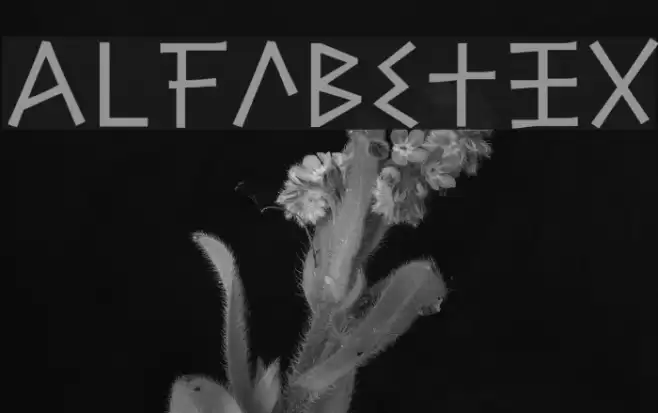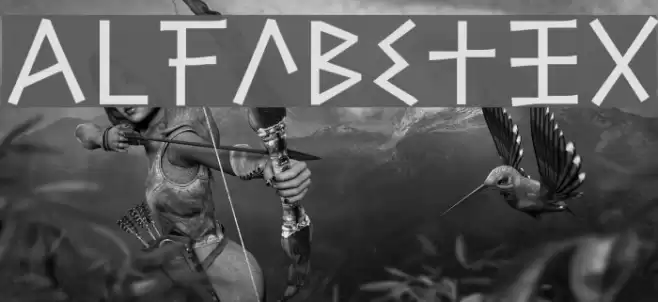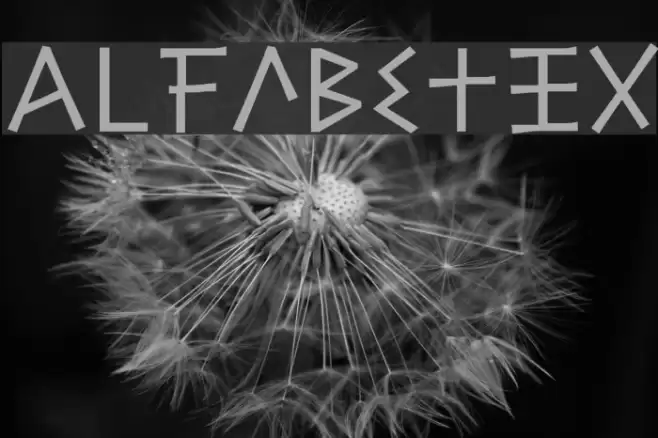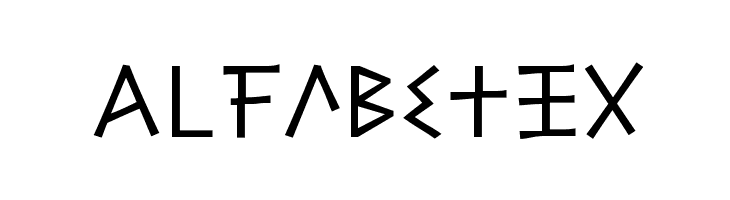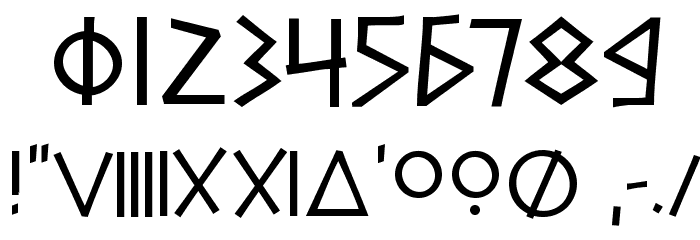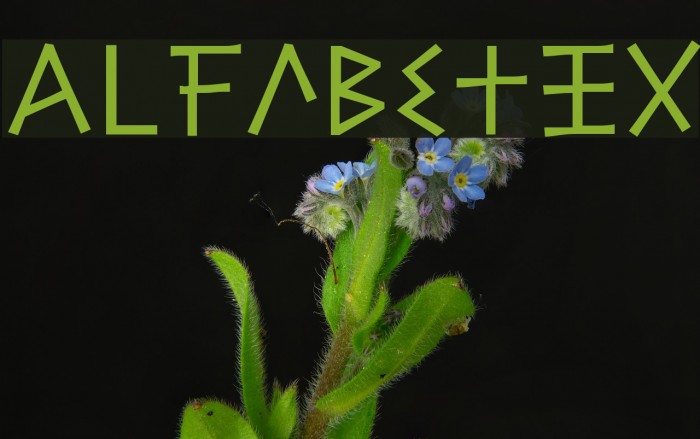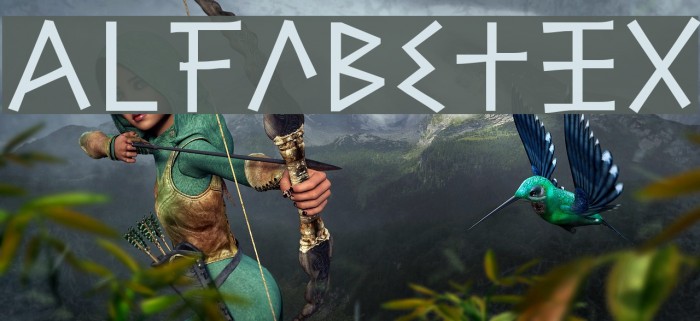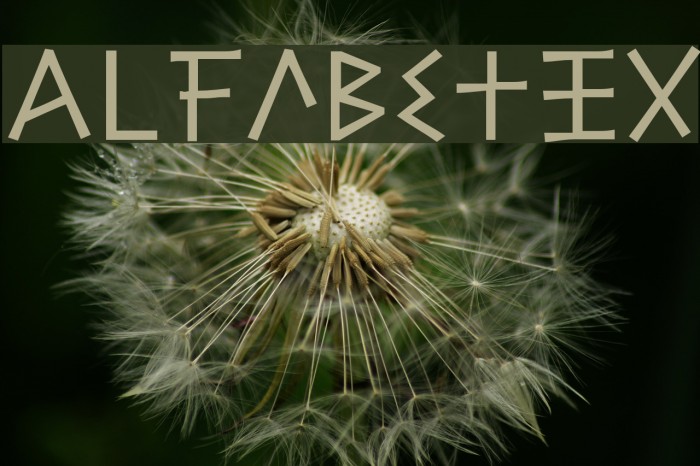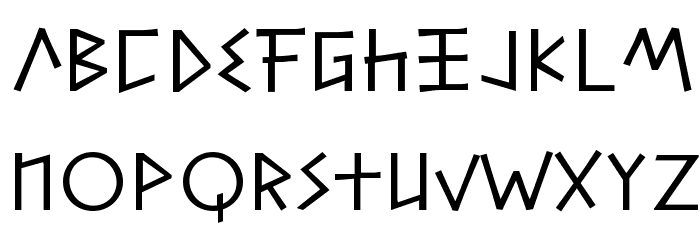
Alfabetix Font
Alfabetix Description
This font features a unique and playful design inspired by ancient runic and geometric shapes. Each character is crafted with sharp angles and bold lines, giving it a distinctive and eye-catching appearance. The uppercase letters have a strong presence, while the lowercase letters maintain the same angular style, ensuring consistency throughout. Numbers and special characters are designed to match the overall aesthetic, making this font versatile for various uses. Its unconventional style makes it stand out, perfect for projects that require a touch of creativity and boldness.
A playful, angular font inspired by runic and geometric shapes from Decorative fonts.
- Proposed Projects: Ideal for creative projects such as posters, logos, and video game design, where a unique and bold typeface is desired.